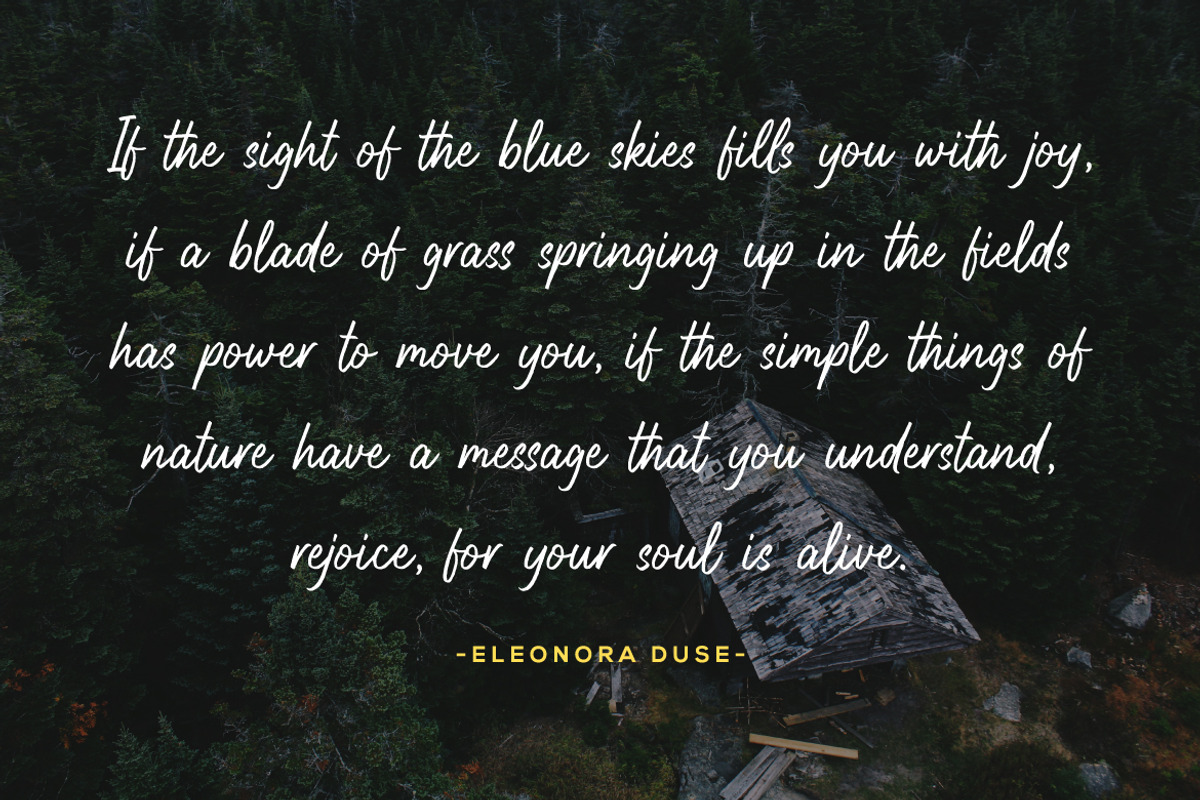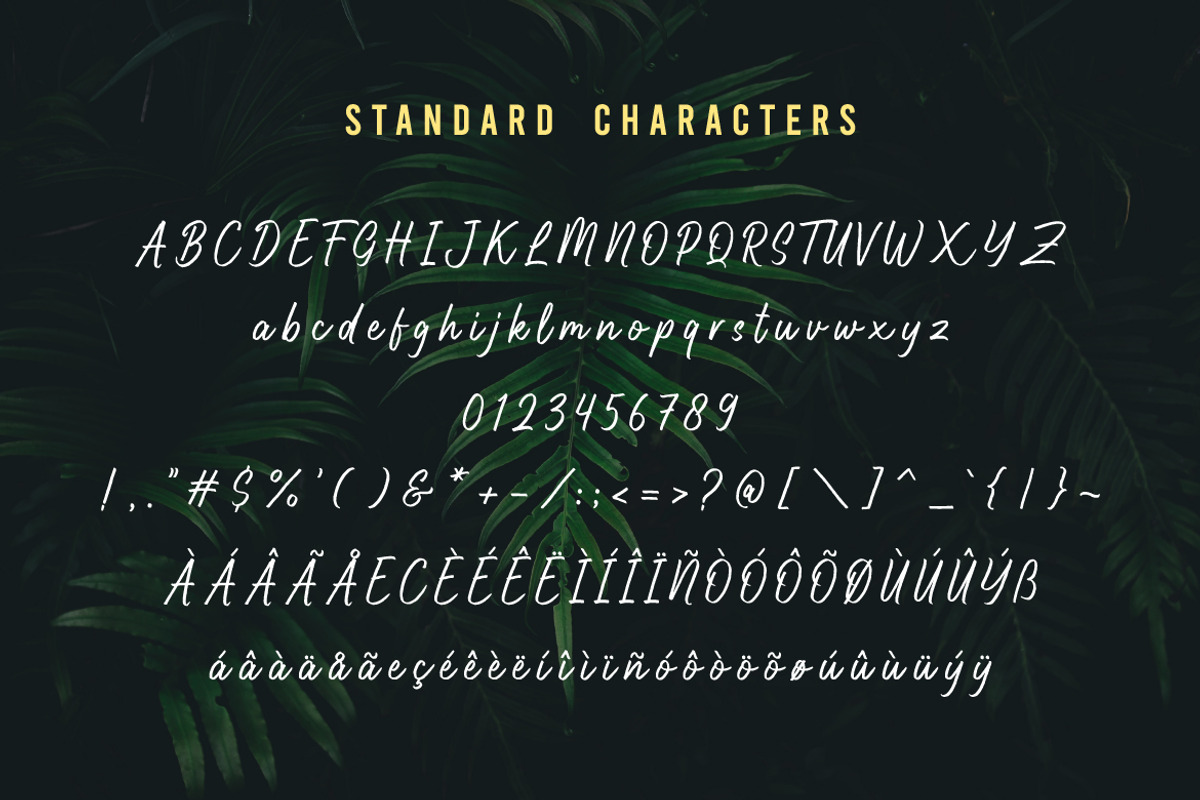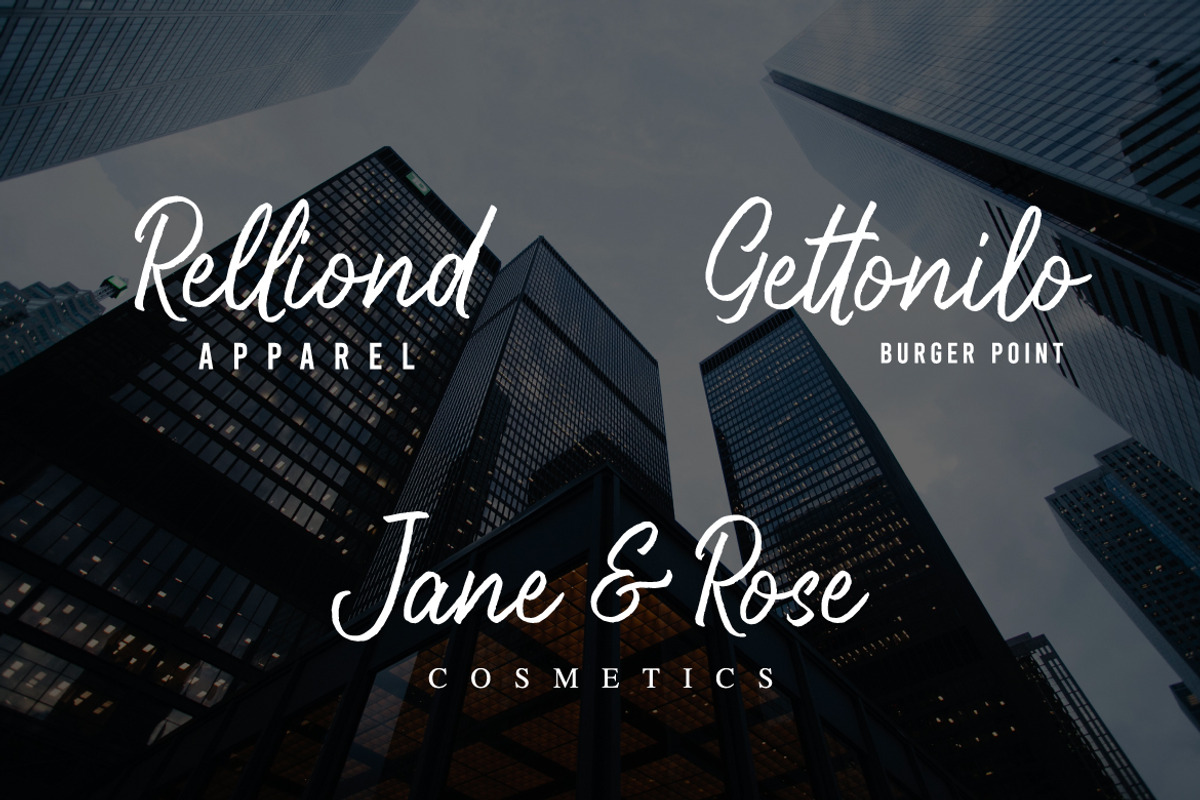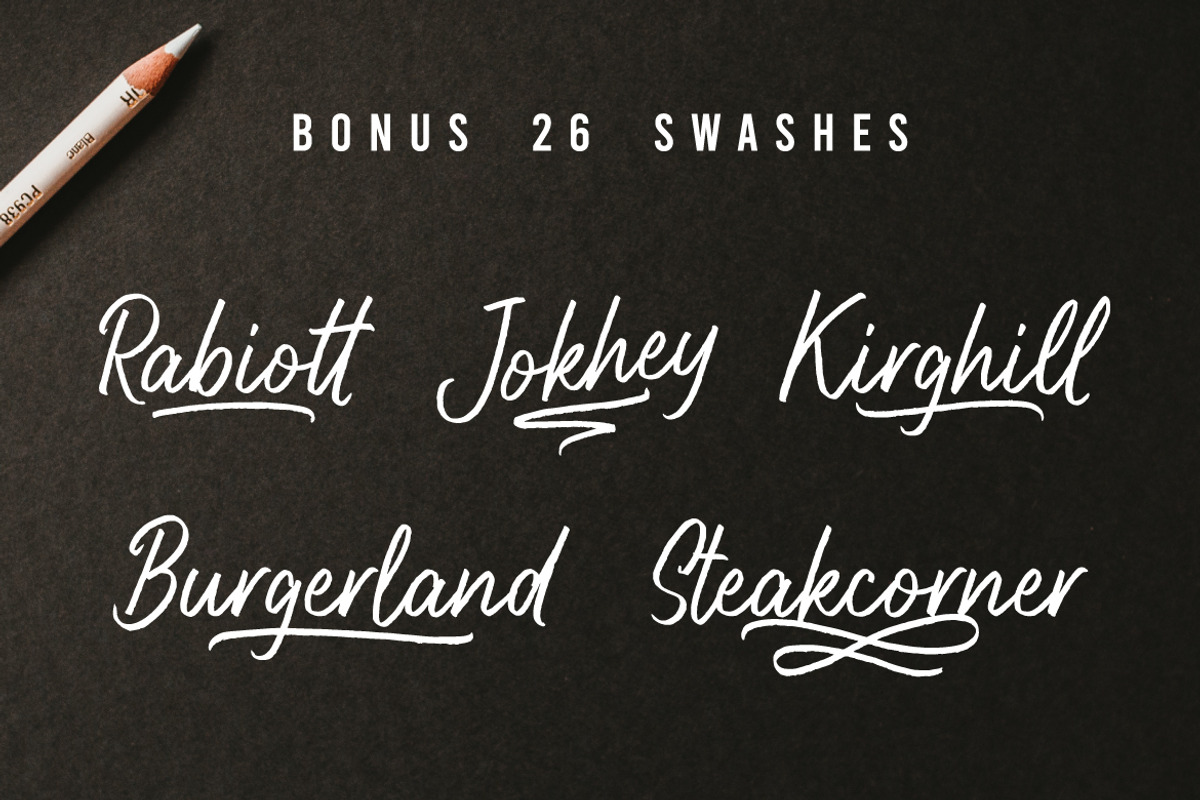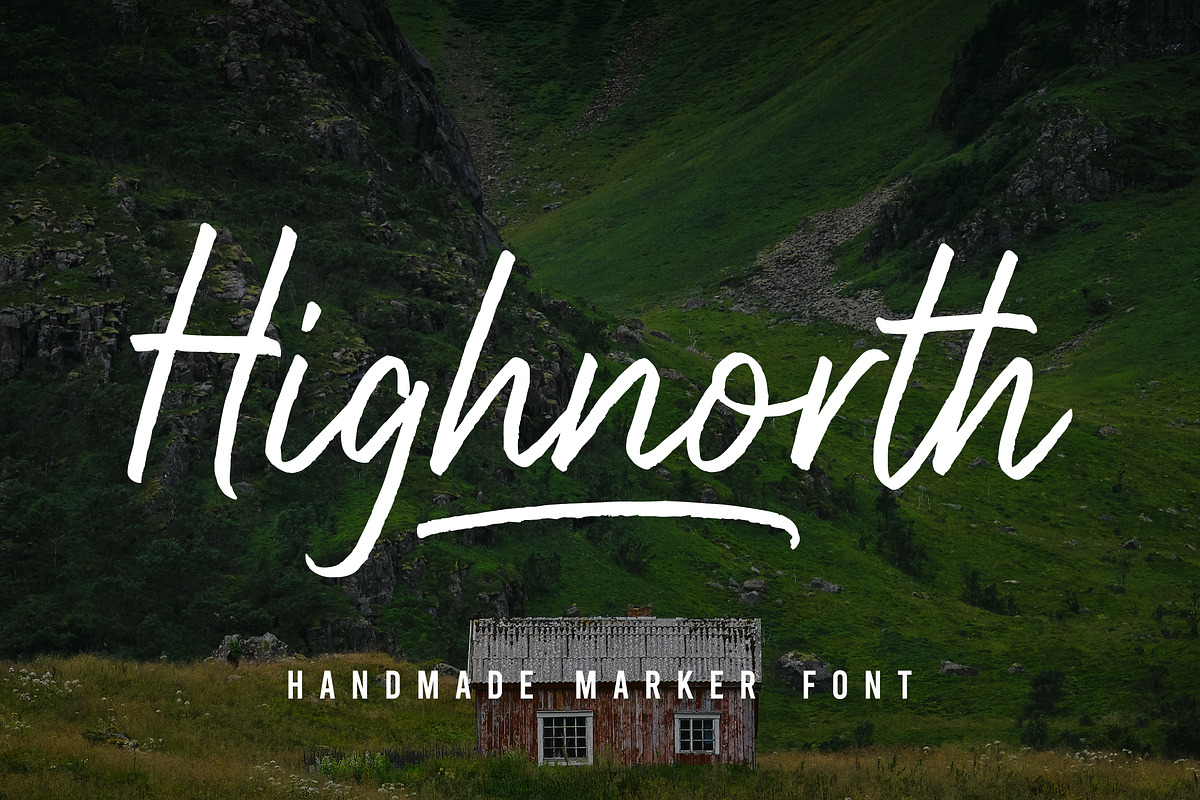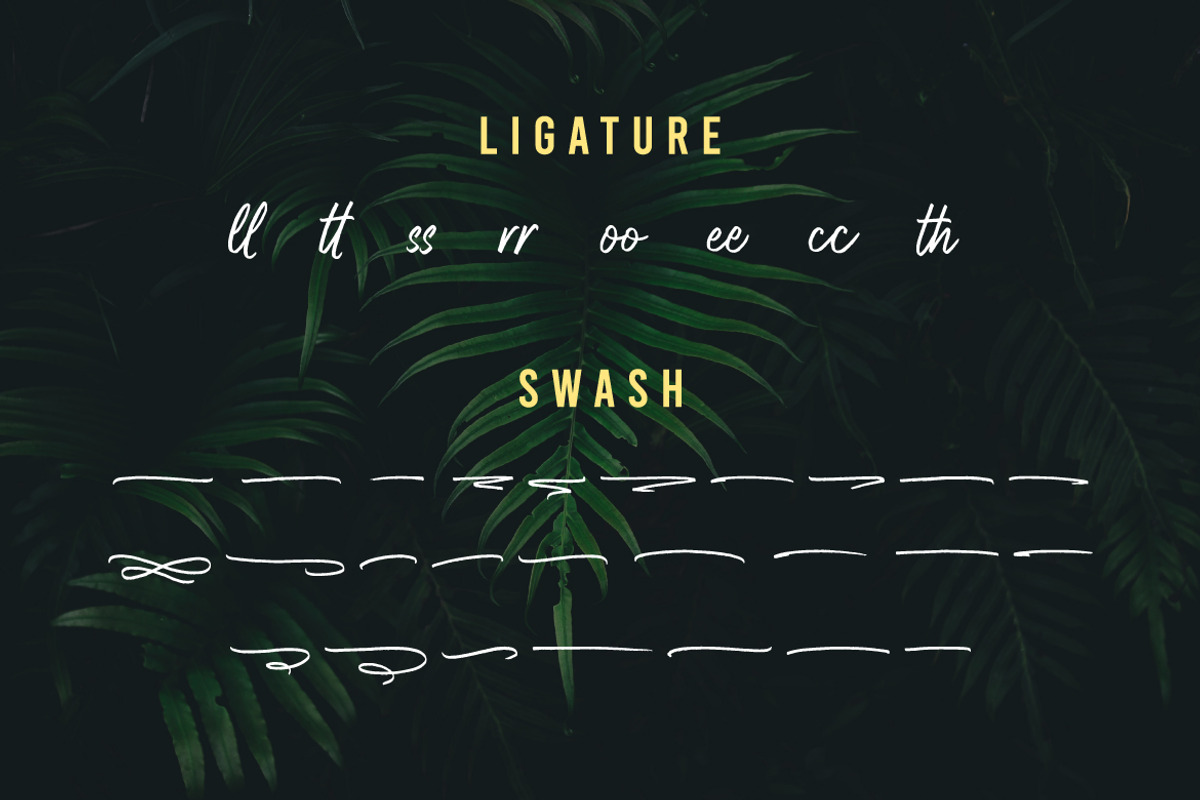
Highnorth - Handmade Marker Font
Highnorth is handmade marker font, we made it to have a small retro / grunge feel and we also put it in a creative casual style. This font is best used for product packaging, every handmade product, greeting cards, photography, and nature related to give the product sense of authenticity.